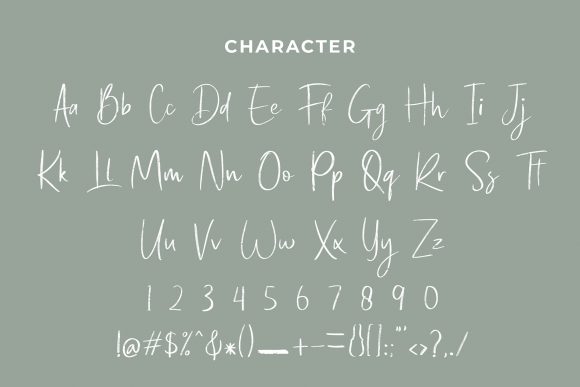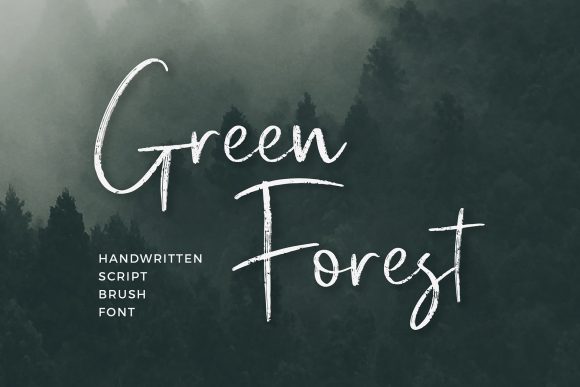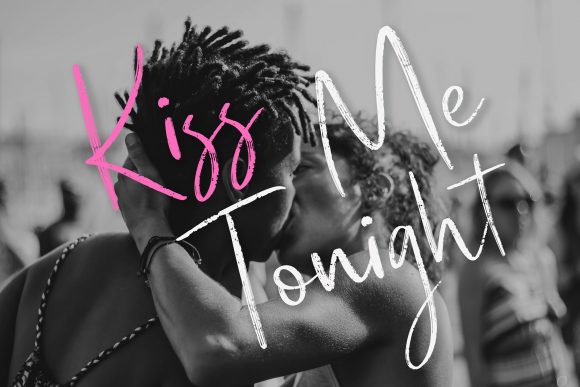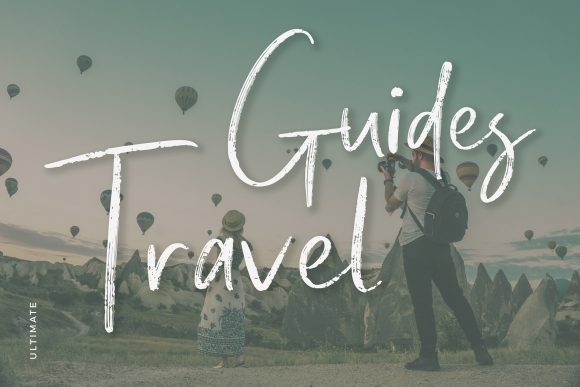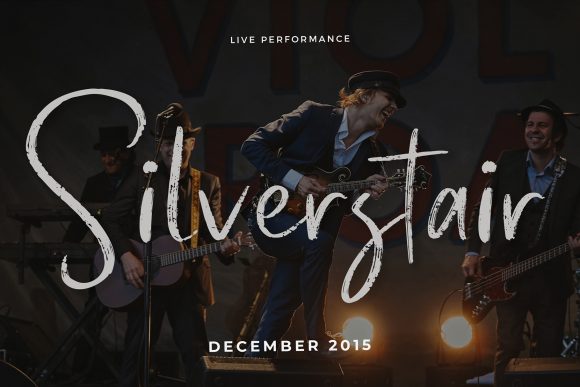
The Magic of Black Shine Font: Elevate Your Designs with Elegance
I still remember the time I was working on a wedding invitation project, and my client asked for a font that was both elegant and casual. I scoured the internet, tried countless fonts, but nothing seemed to fit the bill. That was until I stumbled upon Black Shine Font. Its flowing, brushed calligraphy style danced along the baseline, capturing the essence of what I was looking for. In this article, I’ll share my experience with Black Shine Font, its features, and how to make the most of it in your designs.
An Honest Review of Black Shine Font
- ✨ Elegant yet casual touch: Black Shine Font strikes the perfect balance between sophistication and playfulness.
- ✅ Versatile: Use it for logos, wedding invitations, headings, t-shirts, letterhead, signage, labels, news, posters, badges, and more.
- 💃 Unique character: Each letter seems to dance along the baseline, adding a touch of whimsy to your designs.
While Black Shine Font is an excellent choice, there are a few things to keep in mind:
- ⚠️ Limited use in body text: Due to its elegant, cursive nature, Black Shine Font might not be the best choice for lengthy paragraphs.
- 🤔 May require adjustments for certain languages: Some languages may require additional glyphs or adjustments to ensure proper rendering.
The Story Behind Black Shine Font
Black Shine Font was designed with the intention of creating a elegant yet casual typeface. The designer aimed to craft a font that would be perfect for a variety of applications, from wedding invitations to headings and titles. With its unique character and flowing script style, Black Shine Font has become a popular choice among designers.
| What is Black Shine Font best used for? | Black Shine Font is versatile and can be used for logos, wedding invitations, headings, t-shirts, letterhead, signage, labels, news, posters, badges, and more. |
| Is Black Shine Font suitable for body text? | While Black Shine Font is elegant, it’s not ideal for lengthy paragraphs. It’s best used for headings, titles, or short text elements. |
| Does Black Shine Font support OpenType features? | Yes, Black Shine Font supports OpenType features, allowing you to access glyphs, stylistic alternates, and more. |